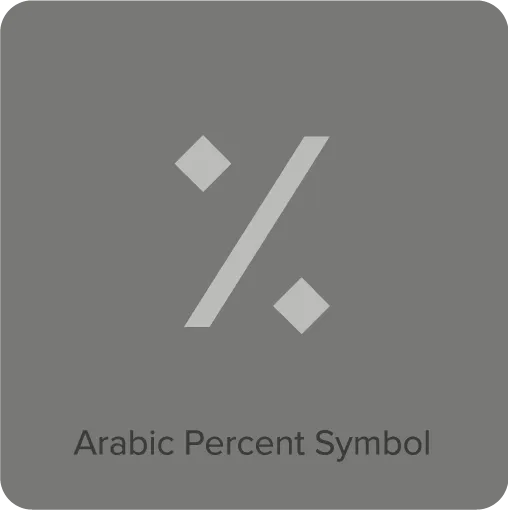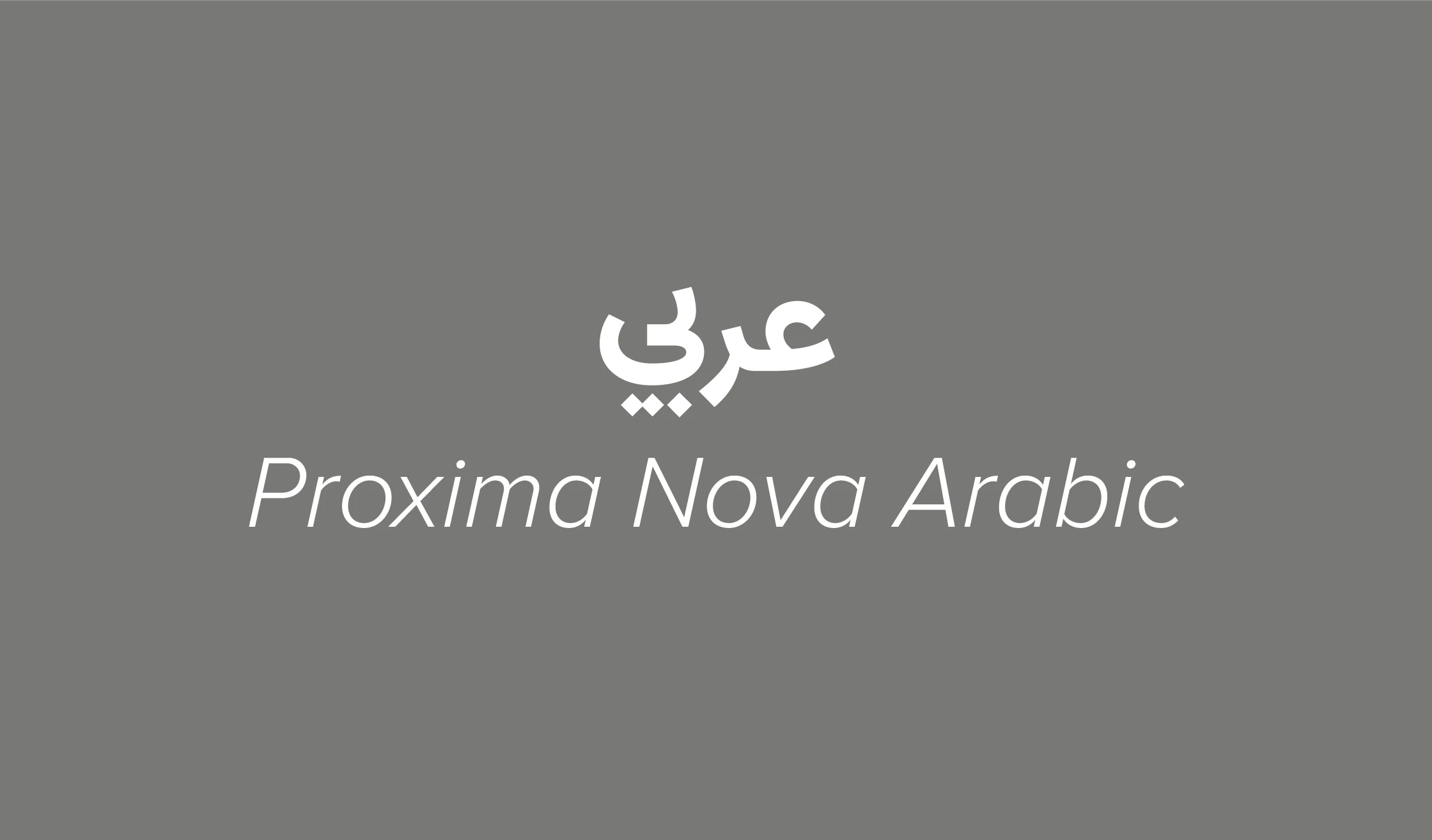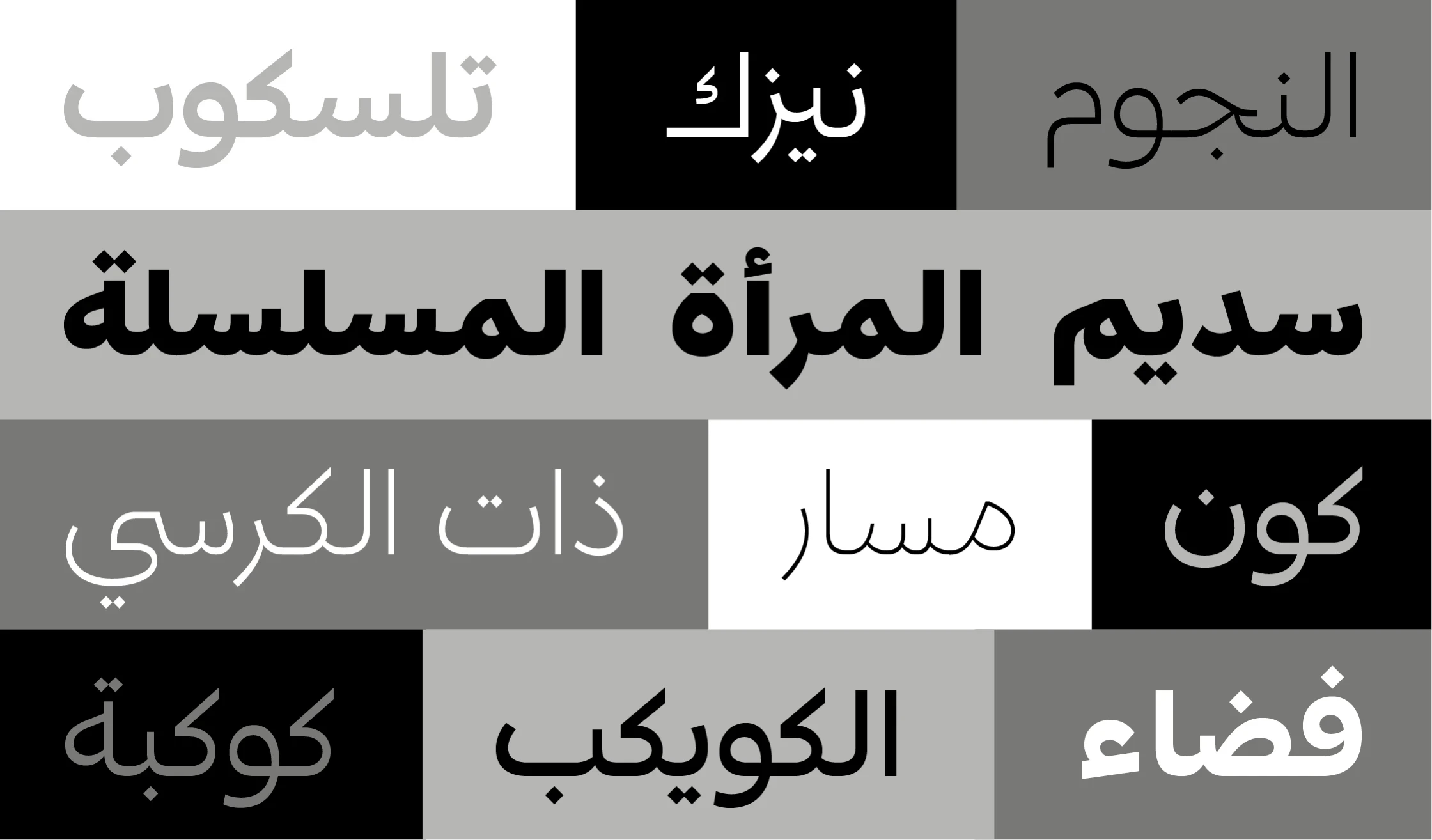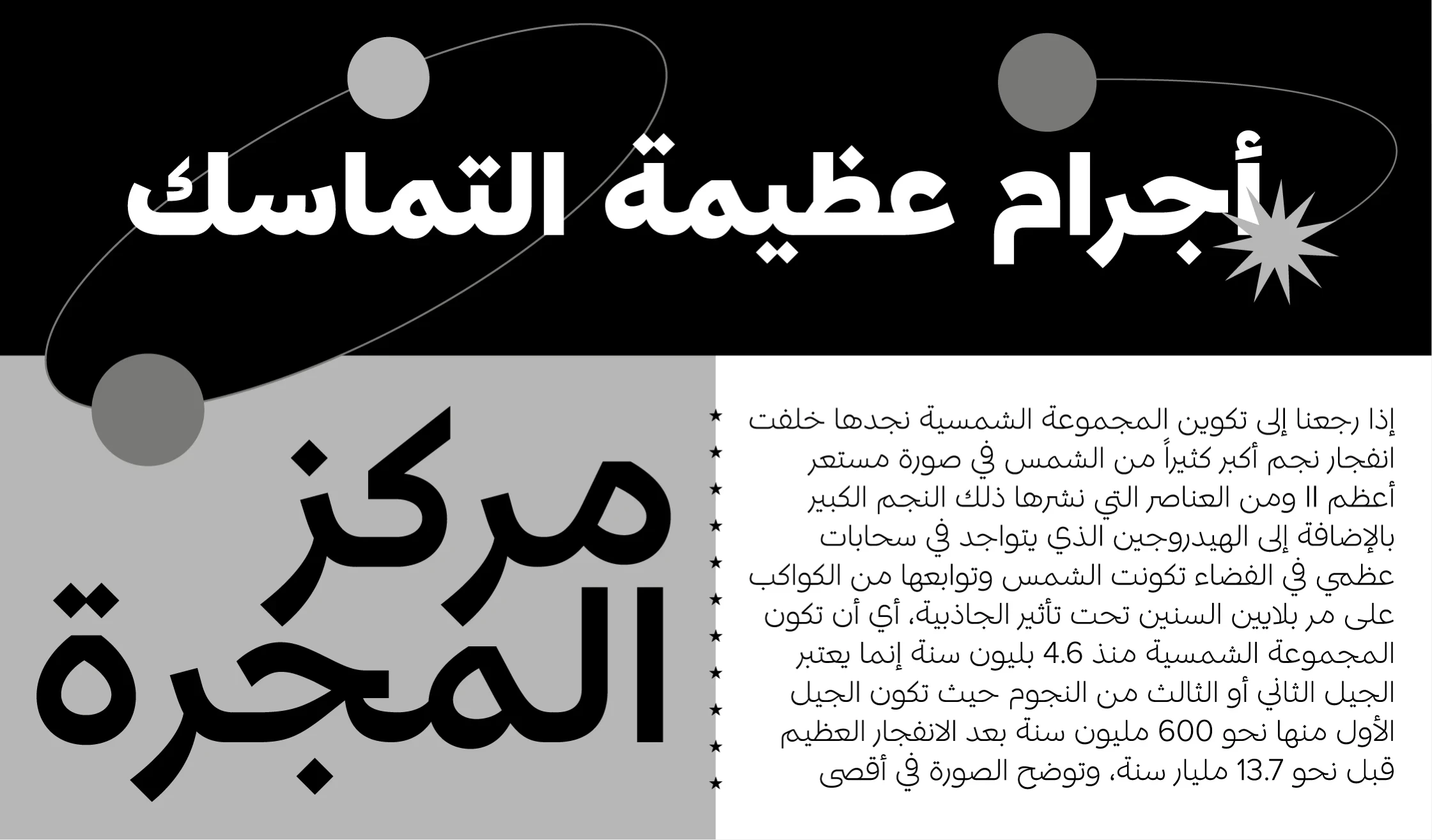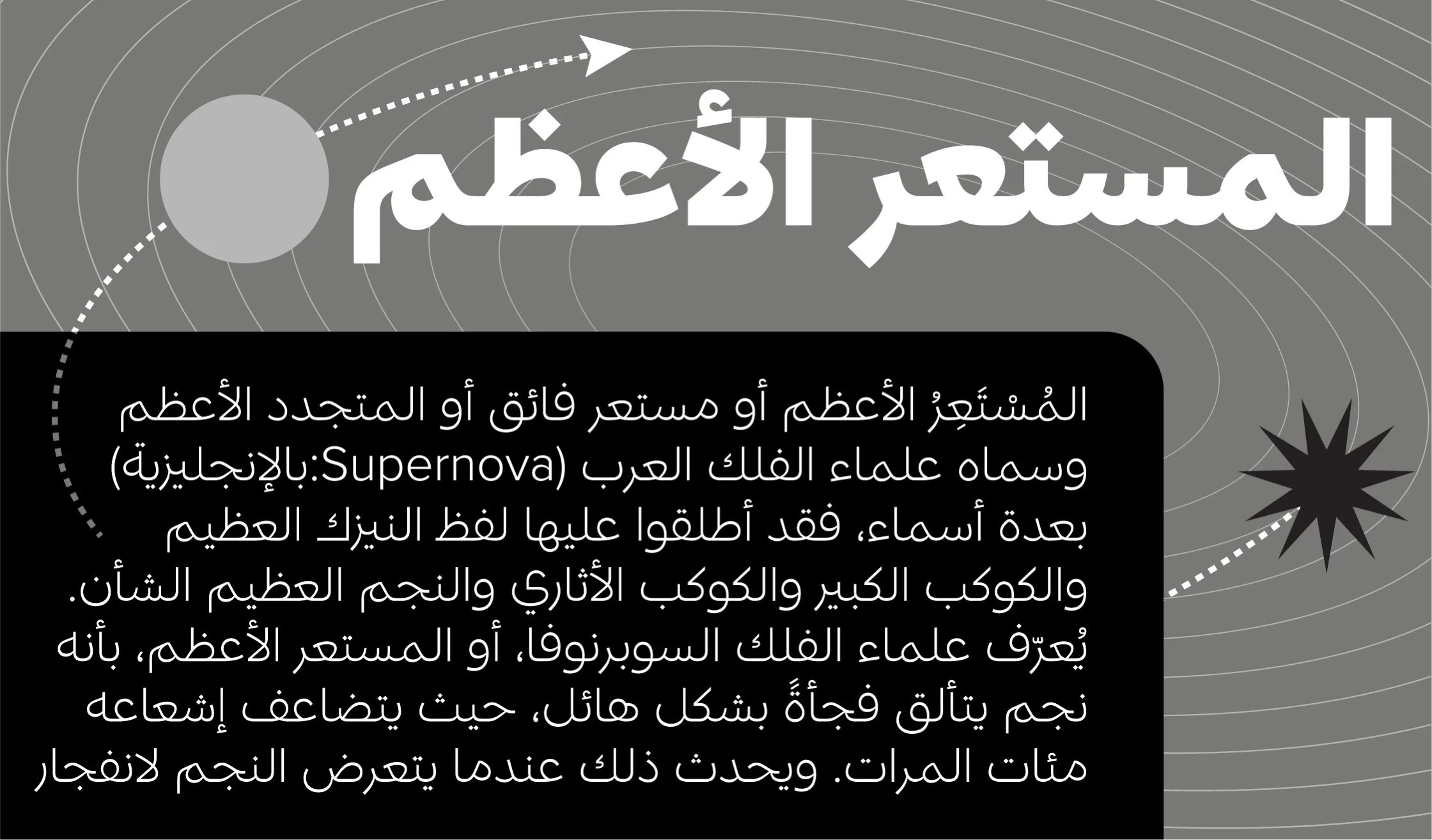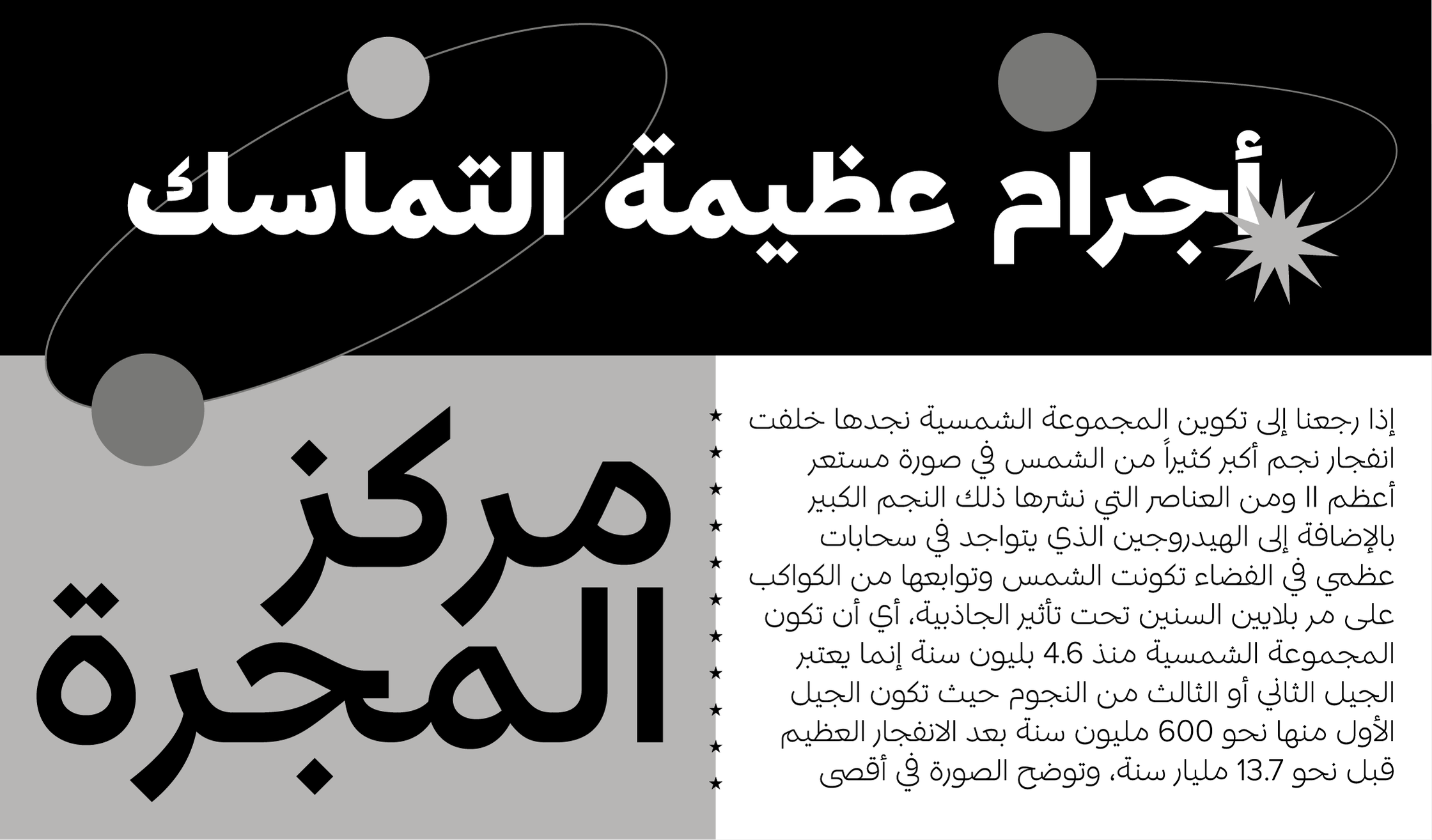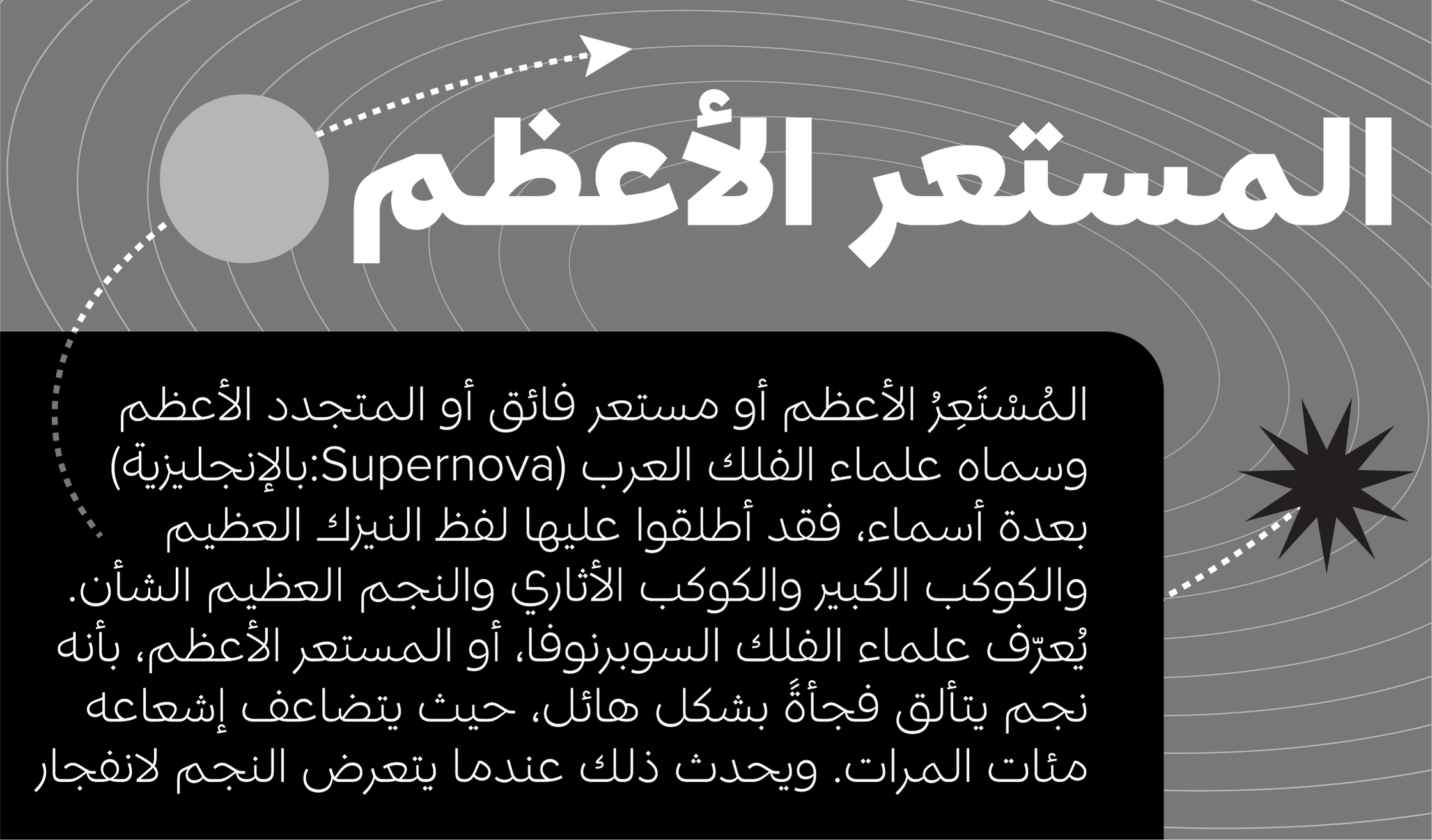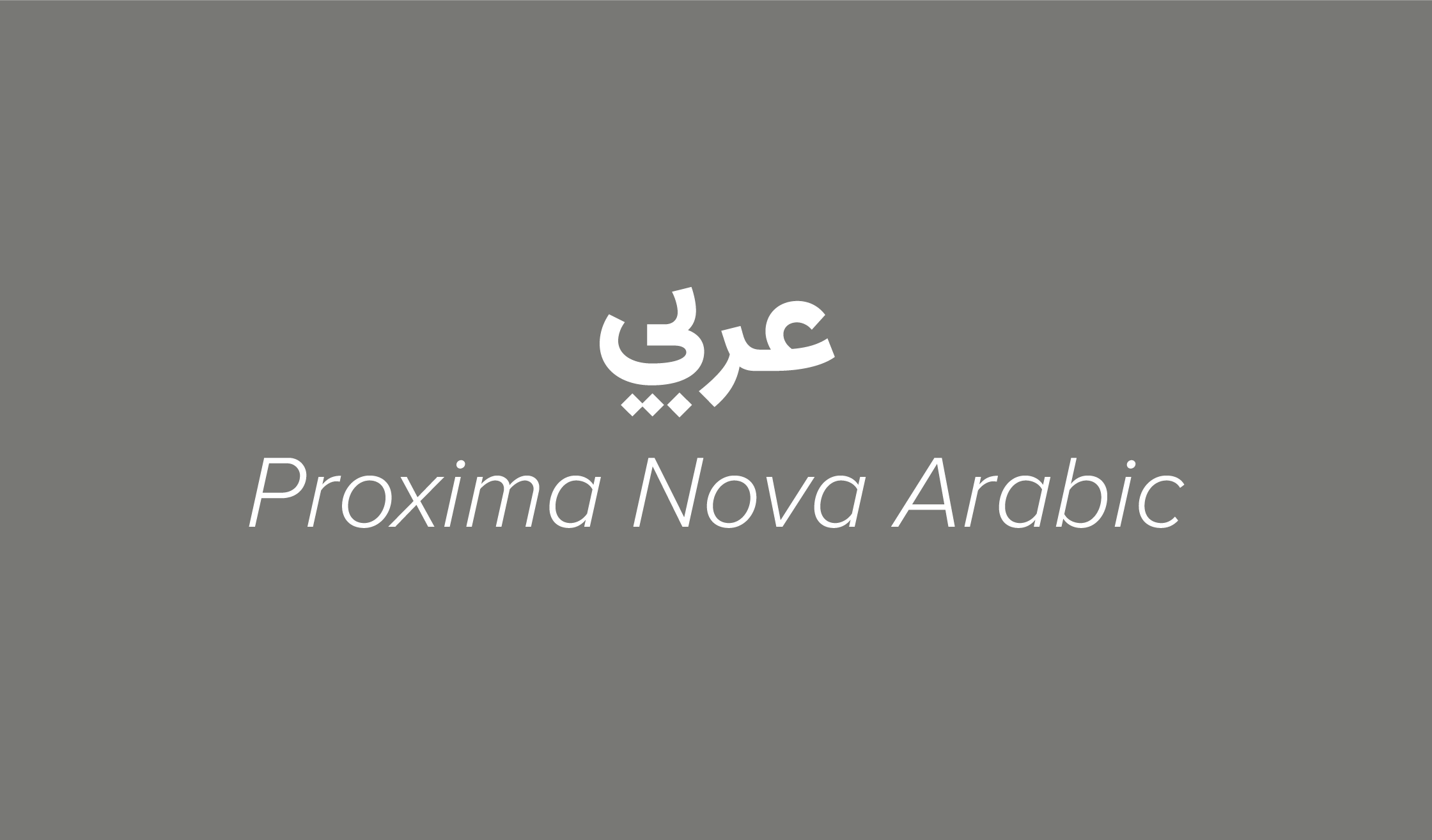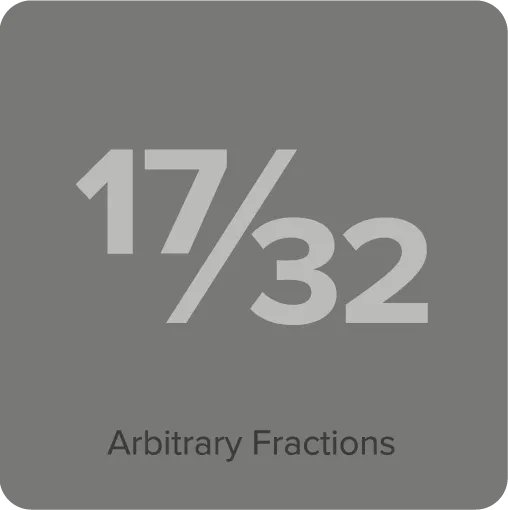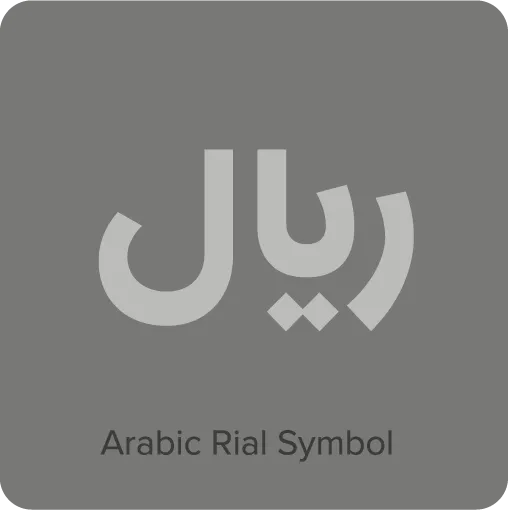
Proxima Nova Arabic (2024) was designed by Khajag Apelian and Wael Morcos to complement Mark Simonson’s ever-popular Proxima Nova. Using a sculptural approach, a balance was reached between the calligraphic and geometric, giving graphic designers and typographers an Arabic script with the look and utility of a modern sans serif excellent for print and screen use. Available in eight weights — from Thin to Black — this growing family of typefaces is set to become even more popular worldwide.
Proxima Nova Arabic Features
- 8 weights: Thin, Light, Regular, Medium, Semibold, Bold, Extrabold, and Black.
- Matching small caps for all weights.*
- Case-sensitive forms for all-caps settings.*
- Lining and old style figures (proportional and tabular).*
- Discretionary ligatures.
- Full “f” ligature set (ff, fi, fl, ffi, ffl, etc.).*
- Alternate characters (a, l, y, G, slashed zero, and seriffed 1).*
- Arabic rial, and percent symbols.
- Automatic arbitrary fractions.*
- Automatic ordinals.*
- Romanization of Arabic character set.
- Extended language support for Arabic, most Latin-based Western and Central European languages. Also includes the capital German sharp S.